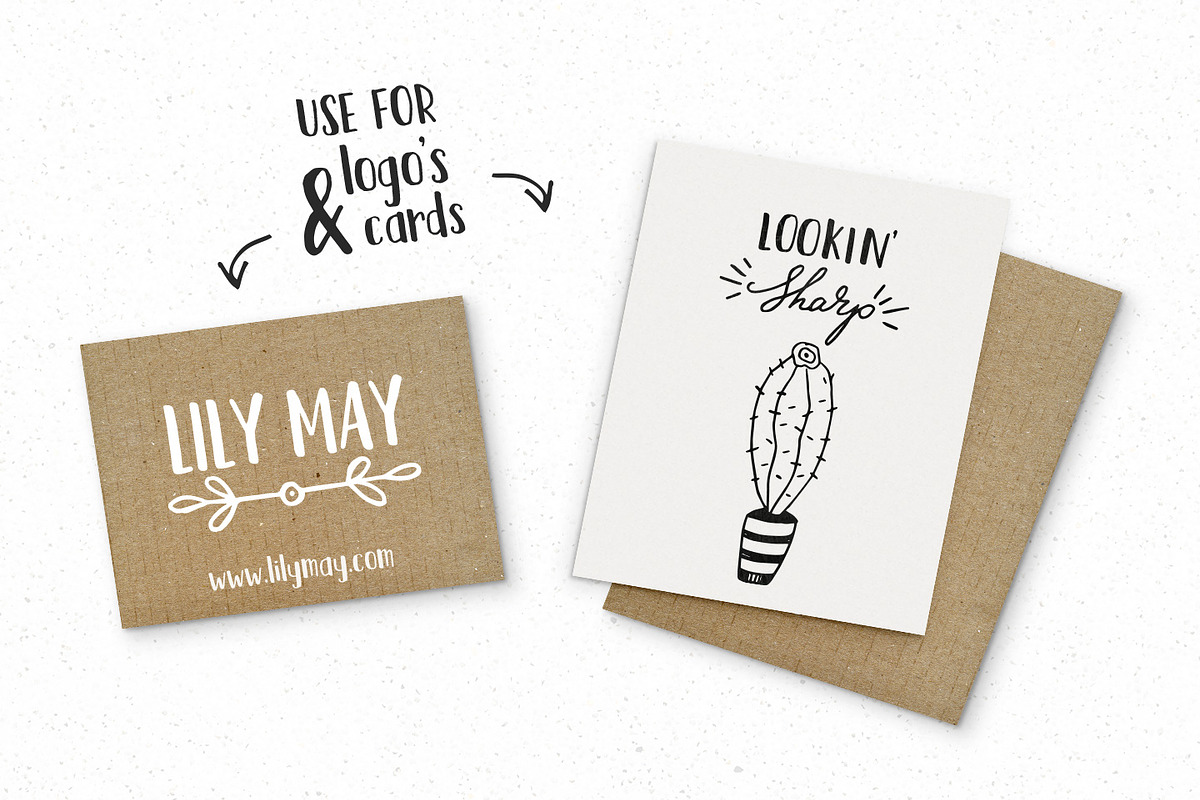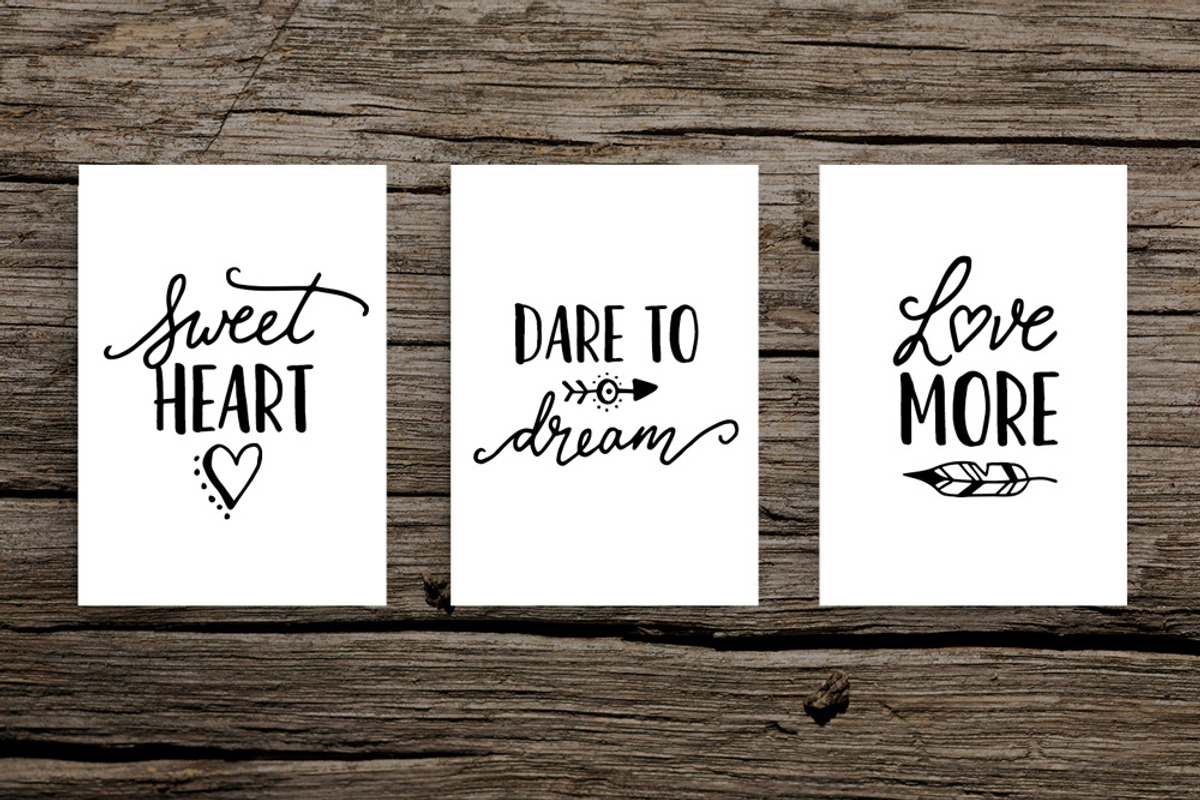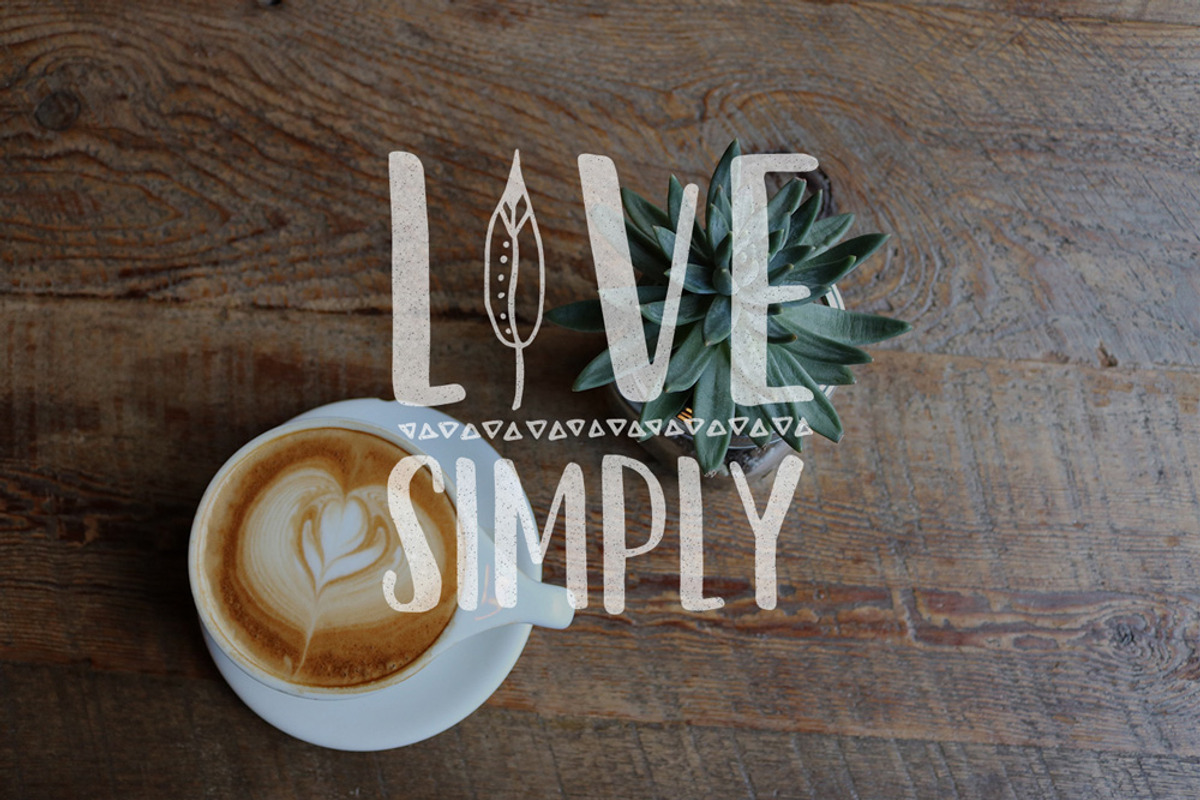
Januar Font
Januar is a fun, quirky handwritten font. This playful sans-serif will look so cute on your cards, invites, and any other fun projects you are working on. It also works perfectly when pairing it with a script font. This font contains standard characters, lowercase, uppercase, numbers, punctuation and international characters.
Januar Fun Handwritten Font